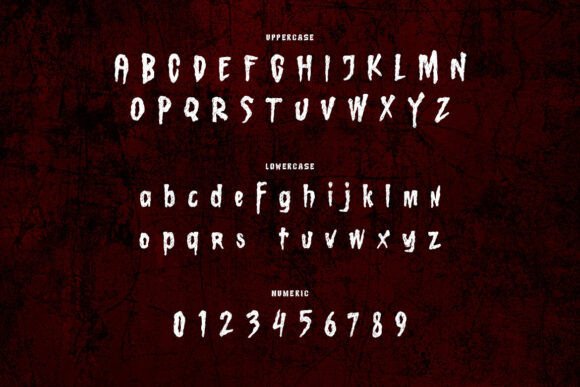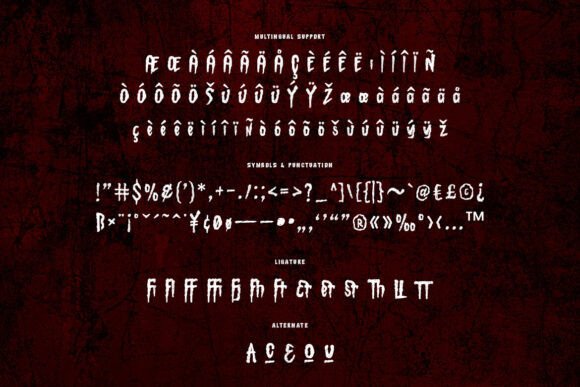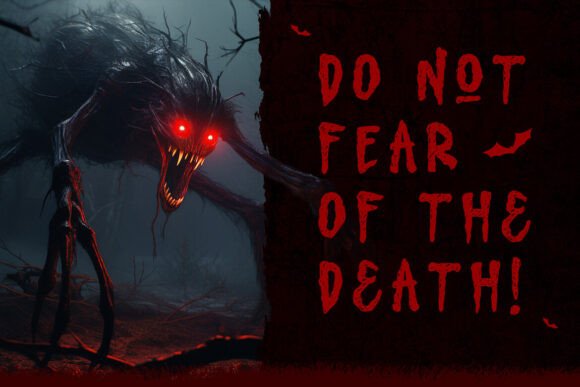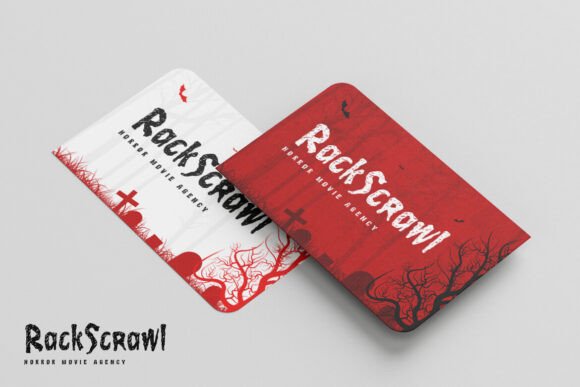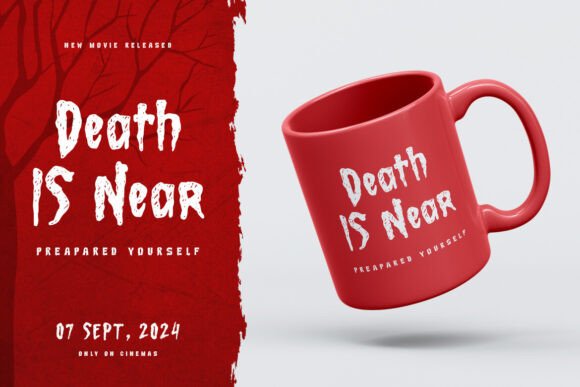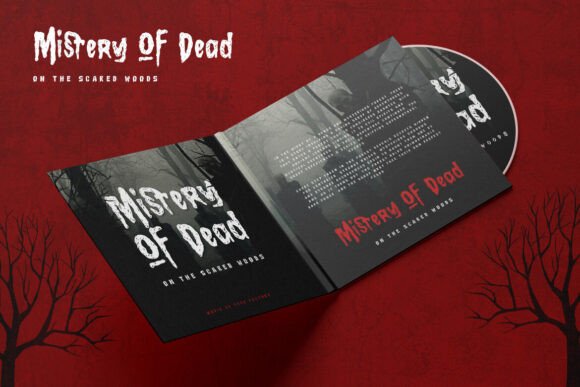
Unleash the Horror: Introducing Deadcombs Font
Are you a designer or crafty enthusiast looking to add a touch of terror to your projects? Look no further than Deadcombs Font, a spine-chilling typeface that brings a sense of dread and unease to your designs. With its jagged edges, distressed textures, and ominous letterforms, Deadcombs captures the essence of fear and the macabre, perfect for creating unforgettable and terrifying designs.
The Perfect Font for Horror Enthusiasts
Deadcombs Font is specifically designed for those who dare to venture into the world of horror and the supernatural. Whether you’re creating a poster for a horror movie, a flyer for a haunted house, or an invitation for a Halloween party, Deadcombs is the perfect choice. Its eerie and haunting appearance will send shivers down the spines of your audience, making your designs truly unforgettable.
Key Features of Deadcombs Font
- Jagged Edges: Deadcombs features jagged edges that give it a rough, distressed look, adding to the overall sense of unease and fear.
- Distressed Textures: The font’s distressed textures give it a worn, aged appearance, as if it’s been plucked straight from a haunted graveyard.
- Ominous Letterforms: Each letterform in Deadcombs is carefully crafted to evoke a sense of dread and foreboding, making it perfect for horror-themed designs.
With Deadcombs Font, the design possibilities are endless. Here are a few ideas to get you started:
- Horror Movie Posters: Create eye-catching posters for your favorite horror movies or use Deadcombs to promote your own horror film.
- Haunted House Flyers: Design eerie flyers for haunted houses, abandoned asylums, or creepy carnivals.
- Halloween Invitations: Send out spooky invitations to your friends and family with Deadcombs leading the way.
- Eerie Book Covers: Use Deadcombs to create haunting book covers for horror novels, thrillers, or supernatural tales.
Why Choose Deadcombs Font?
So, why choose Deadcombs Font over other typefaces? Here are just a few reasons:
- Unique Design: Deadcombs features a unique design that’s unlike any other font on the market.
- High-Quality: Deadcombs is a high-quality font that’s designed to deliver exceptional results in any design project.
Tips for Using Deadcombs Font
Here are a few tips for using Deadcombs Font in your designs:
- Experiment with Colors: Try pairing Deadcombs with bold, vibrant colors to create a truly eye-catching design.
- Play with Textures: Experiment with different textures and patterns to add depth and interest to your design.
- Keep it Simple: Don’t be afraid to keep your design simple and let Deadcombs take center stage.
In conclusion, Deadcombs Font is the perfect choice for designers and crafty enthusiasts looking to add a touch of terror to their projects. With its jagged edges, distressed textures, and ominous letterforms, Deadcombs captures the essence of fear and the macabre. Whether you’re creating a horror movie poster, a haunted house flyer, or a Halloween invitation, Deadcombs is sure to deliver a powerful and haunting visual impact. So why wait? Download Deadcombs Font today and unleash the horror in your designs!